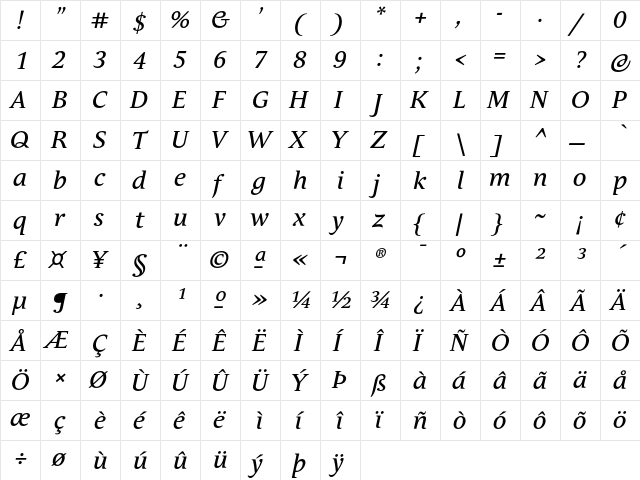
Andulka Text Pro Italic
| Designer | Frantisek Storm |
Design Context for Andulka Text Pro Typeface
Andulka Text Pro is a composed and adaptable typeface that performs quietly and consistently across a wide range of design contexts. Its italic angle brings a sense of urgency and motion to the letterforms.
Pro Tip: Use Andulka Text Pro for emphasis, pull quotes, and subheadings where its slanted energy can add rhythm to the layout.